An old-fashioned and adventurous so we can tell about medieval fonts full of mystic with a classical feel. Today we presenting more as 30 these cool fonts to create an amazing design project which are authentic and really good looking. All of these fonts has been crafted by professional designers and are in the best quality no matter it is free or premiu item. Just relax, take a deep breath and enjoy.
The Ancient – Medieval Sans Typeface
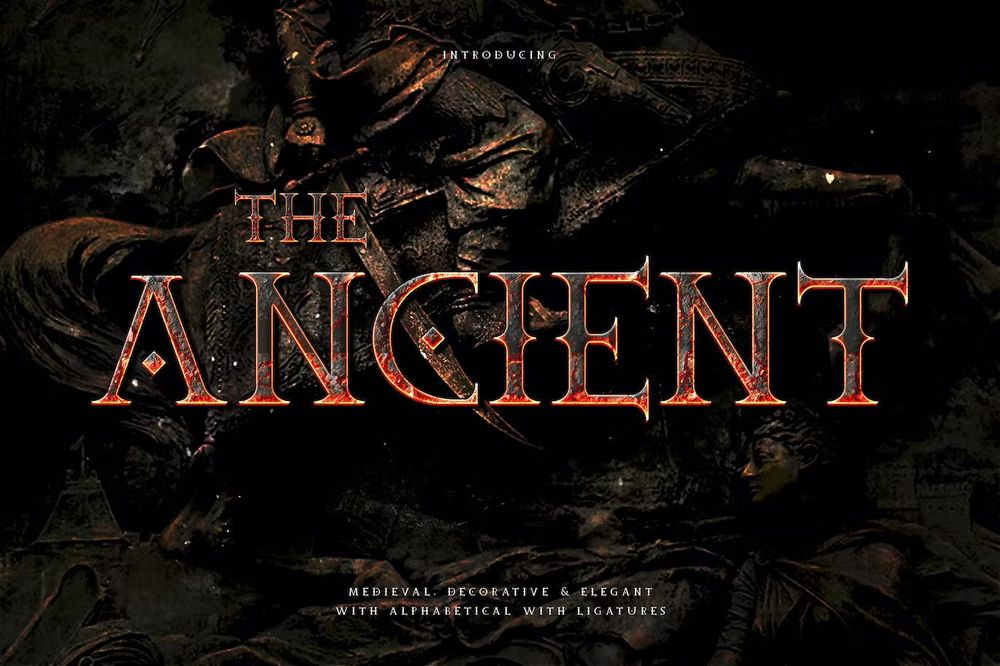
A decorative Medieval typeface for your creative design such as gaming, posters, flyers, movie covers, titles and etc.
Ring of Kerry Font
A perfect choose of this medieval font to your design projects such as book covers, titles, posters, flyers and etc.
Cambridge – Bold Decorative Gothic Font
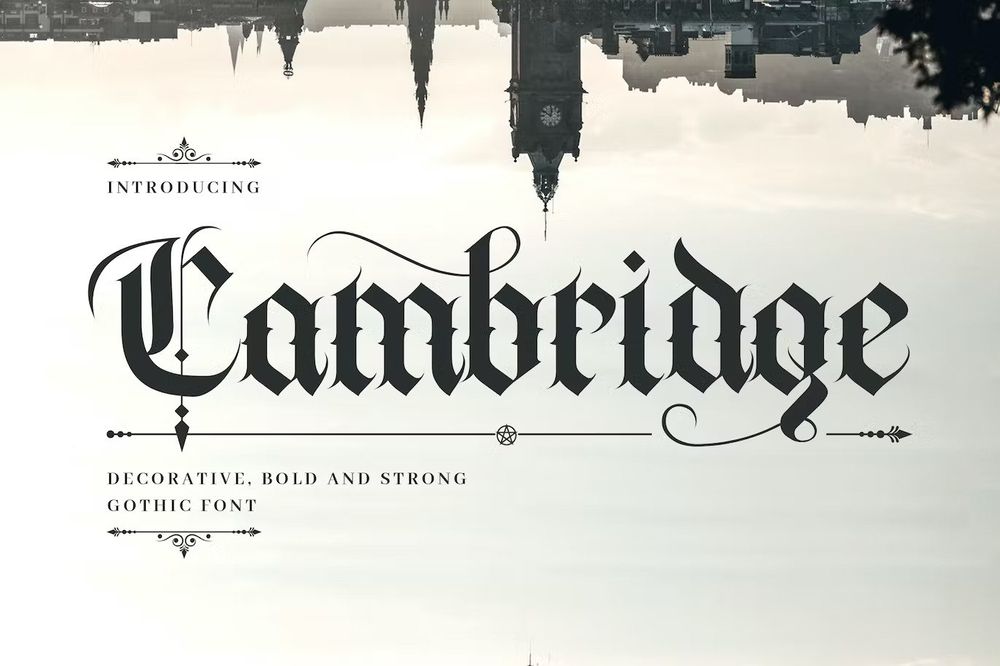
An amazing bold decorative gothic font. Suitable to use for any occasion such as books, logos, print, games, events, music, invitations and etc.
Silvermoon – Medieval Font
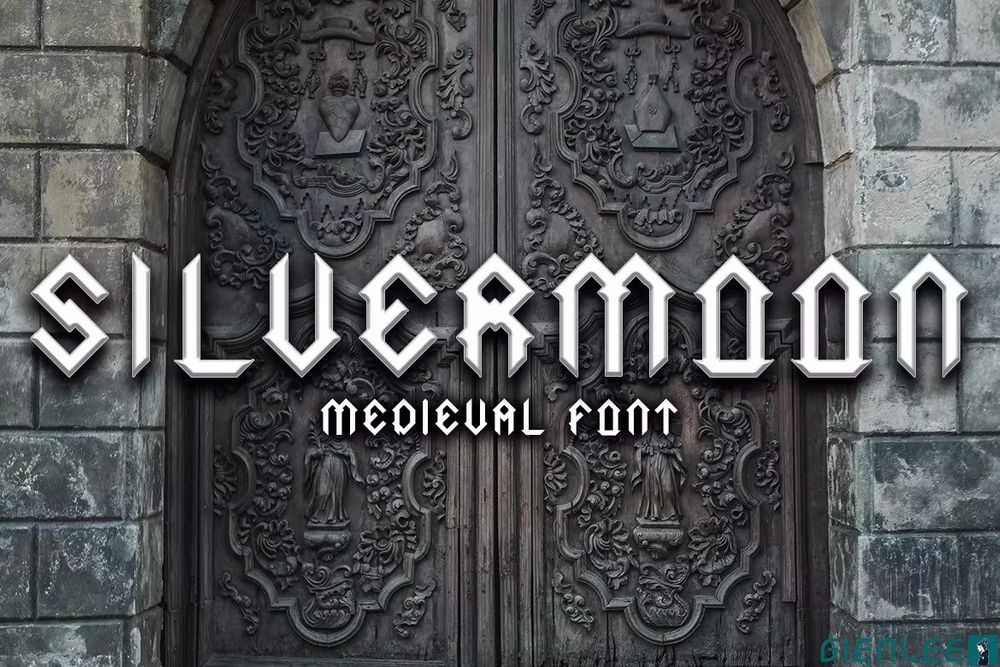
It is a medieval font. Commonly used for middle ages those combined with the beauty of crystal and silver stone.
Blackhead Typeface – Medieval
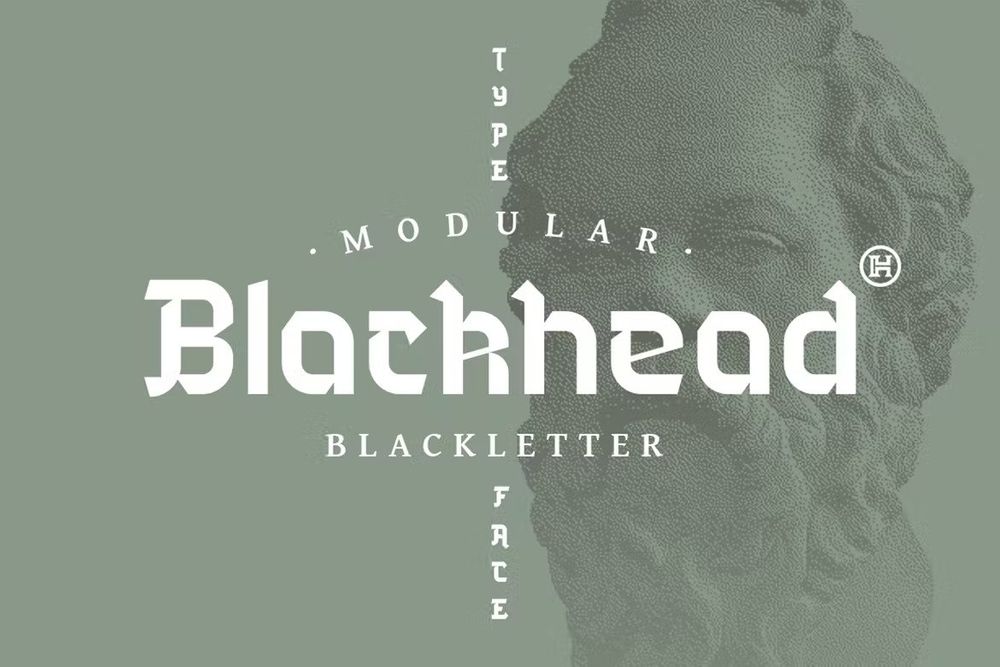
It is a three blackletter font family inspired by gothic script with modern, round letter upper parts. Perfect for eye-catching designs, such as posters or logo design.
Astaroth Medieval Display Font
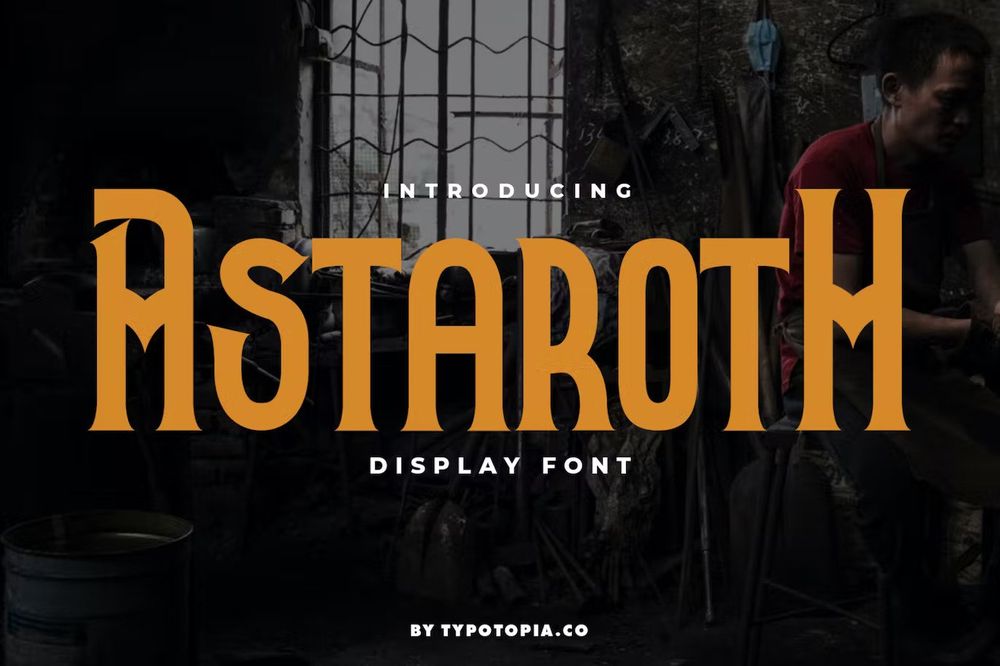
Cool medieval display font so good for the purposes of designing templates, brochures, videos, advertising branding, logos and etc.
Kingvoon Medieval Business Font
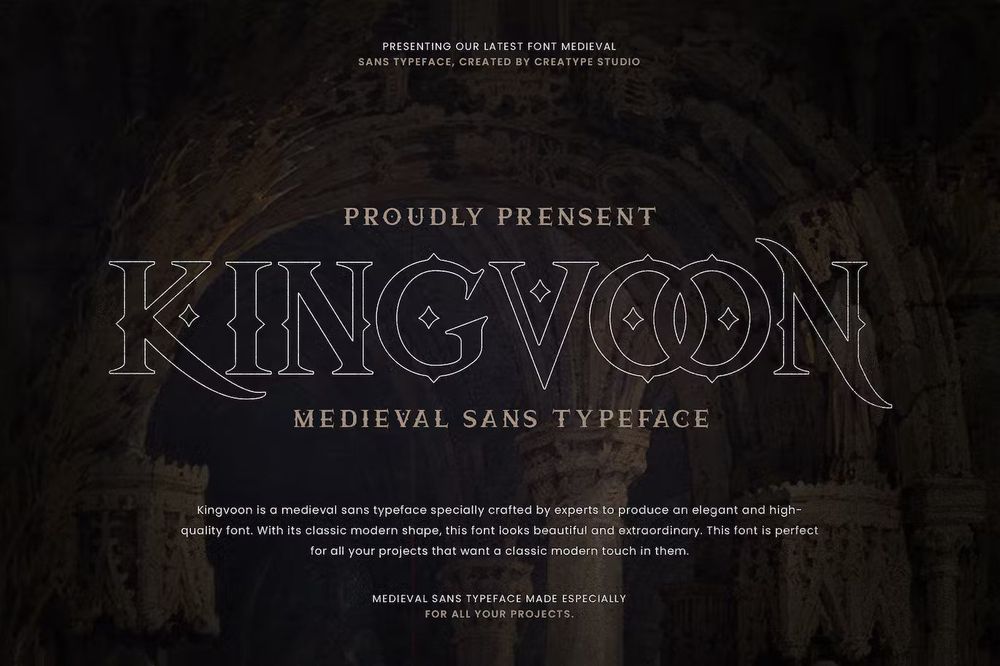
It is a retro funk typeface with a modern twist. Perfect for branding projects, logos, wedding designs, social media posts, advertisements, product packaging and etc.
Wishbone – Medieval Serif Font
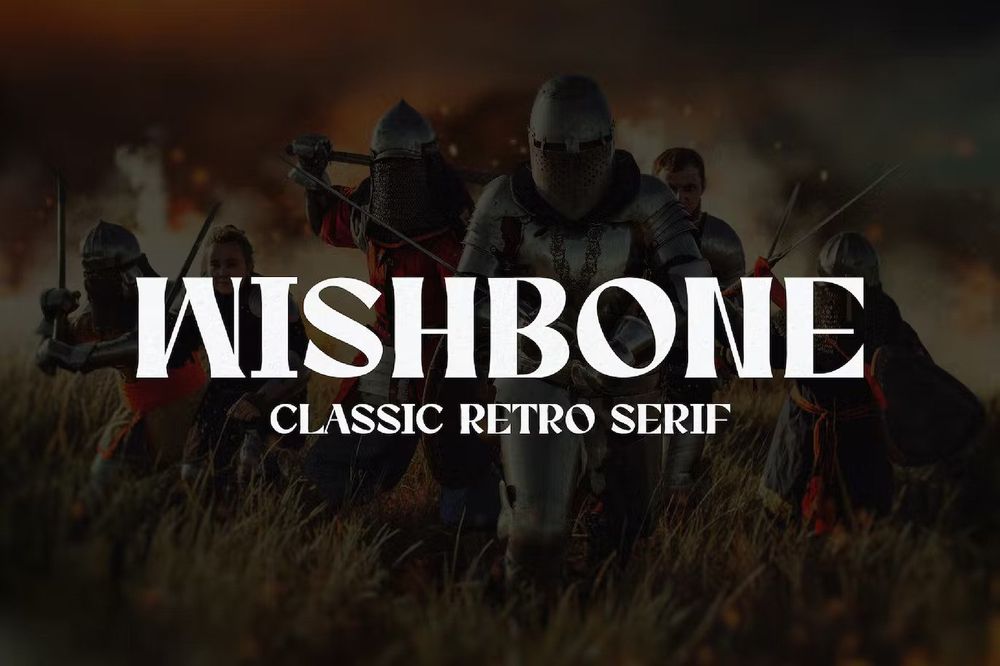
It is a classic serif typeface inspired by medieval typography. The font is perfect for branding, historical projects, book covers, magazines, posters, weddings and etc.
Devon Font
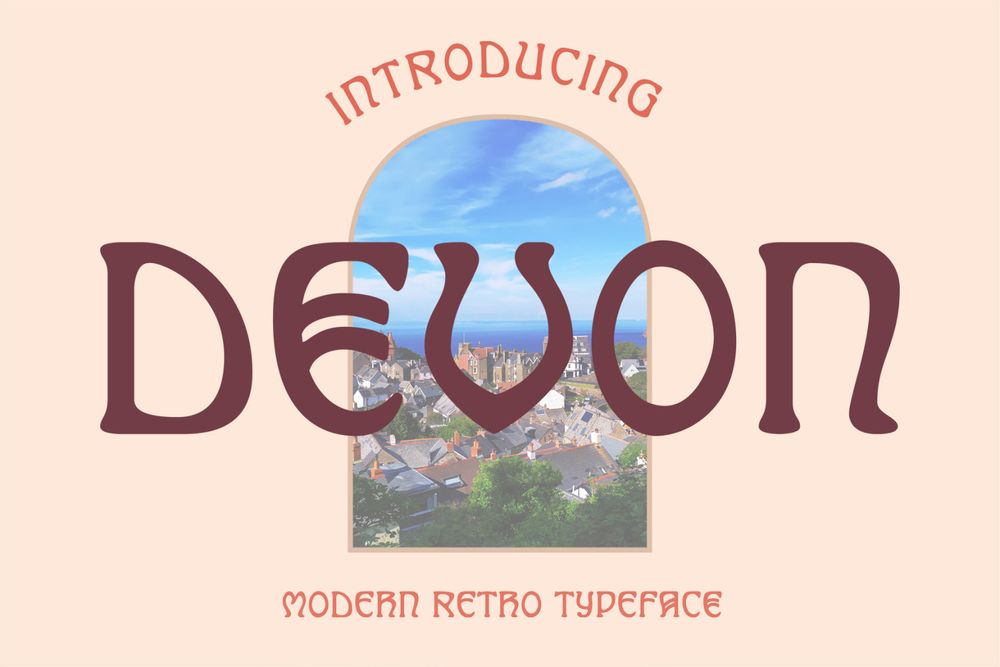
It is inspired by classic medieval characters and weird shapes from the 60’s psychedelic types. This font is great for logos, labels, brandings, socials and etc.
Amovand Font
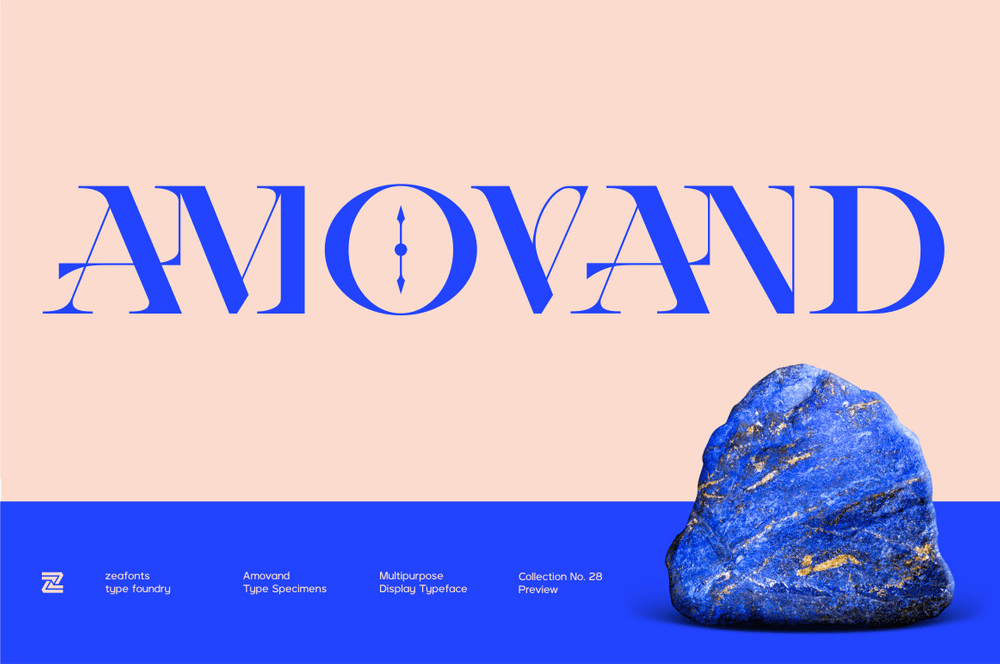
It is a versatile and unique half-side serif font. Create unique & beautiful logotypes, use it as an elegant solution for your next magazine layouts and etc.
Free Godhong Decorative Serif Font
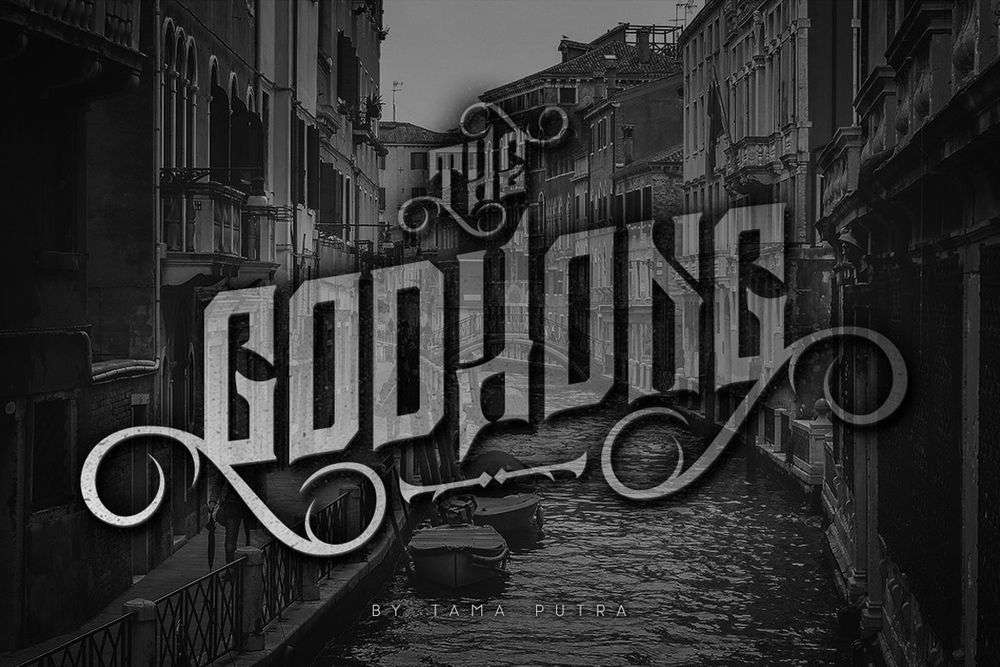
It is a free, cool font inspired from gothic and rebel style. Suitable for any design needs, branding, cover titles, t-shirts, posters and etc.
Free Canterbury Font
It is a gothic medieval style typeface free for personal and commercial use so good for designs such as t-shirts, covers, titles, posters and etc.
Free KingsCross Font
It is an amazing gothic medieval font free for personal and commercial use. Ideal for posters, covers, flyers, magazines and etc.
Free The Empire Font
It is a stylish display free for personal use only font inspired from medieval era. Ideal for branding, logos, photography and headlines.
Belmont Regular Font
It is a medieval font family so good going for game designs, video covers, titles, posters and etc.
Odd Times Font
A mediaval font inspired by old fracture calligraphy. Perfect for posters, titles, covers, t-shirts, packaging and etc.
Serkan – A Celtic Font
This unique display typeface is inspired by celtic styles. The original look will appeal to a wide range of crafty ideas, from letterheads and titles, to stationery.
Fancy Quisley – Blackletter Font
It is an incredibly authentic and daring blackletter medieval style font. Ideal for your designs such as t-shirts, covers, titles, posters, magazines and etc.
King Castle – Celtic Typeface
This unique display typeface is inspired by Celtic styles. The original look will appeal to a wide range of crafty ideas, from letterheads and titles to stationery.
Solaire Rough Font
It is a fantasy themed font with a runic feel to it. Perfect for covers, game designs, posters, flyers and etc.
Gothicha Sans Medieval Font
It is a medieval sans typeface specially crafted by experts to produce an elegant and high-quality font. Suitable for decorative designs, t-shirts, posters, covers and etc.
Bricius – Display Celtic Typeface